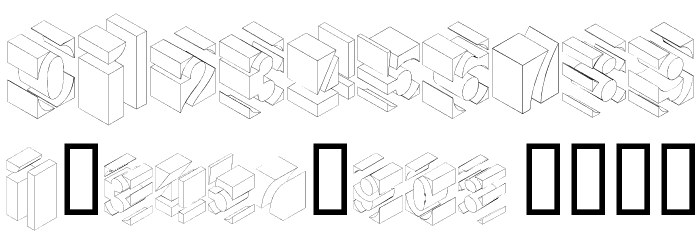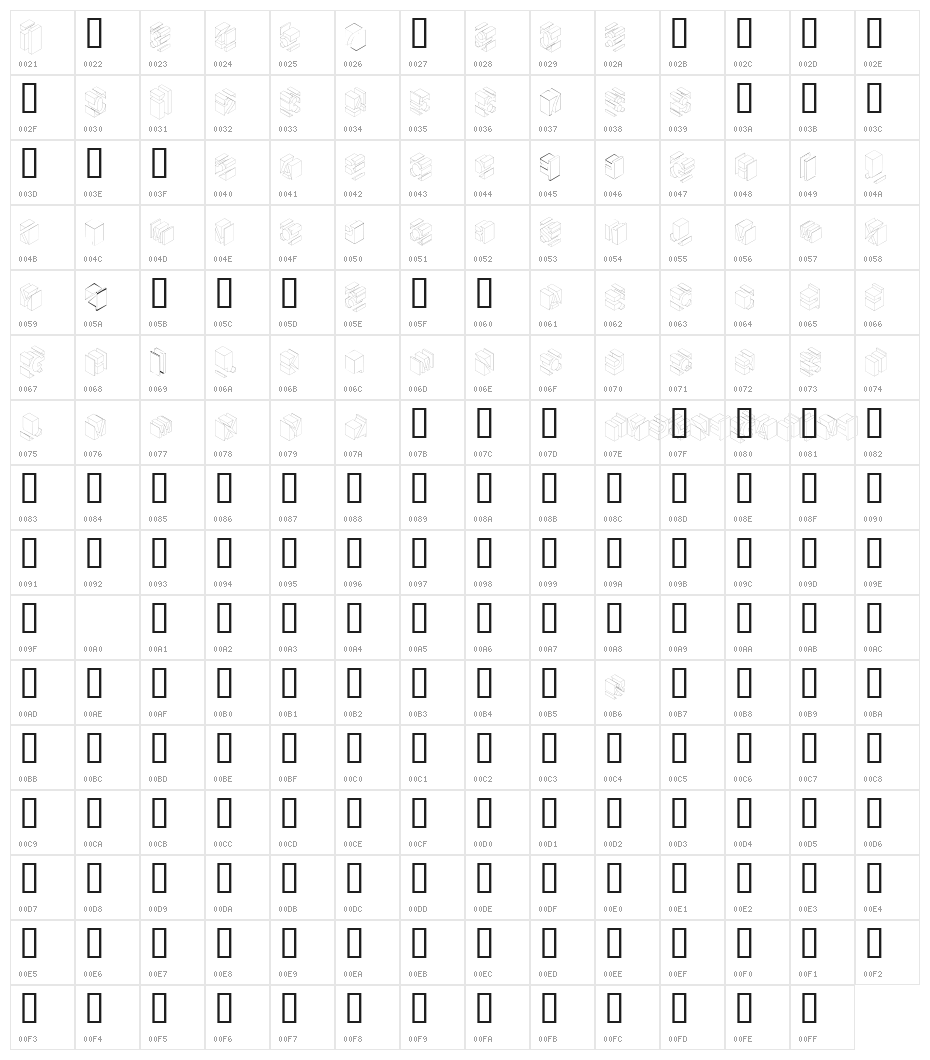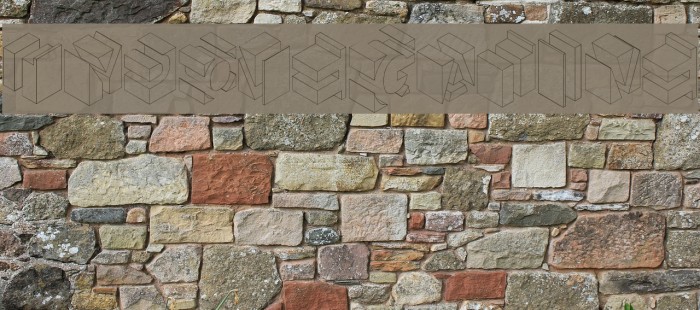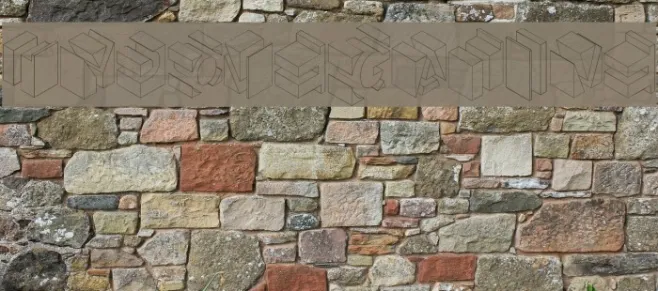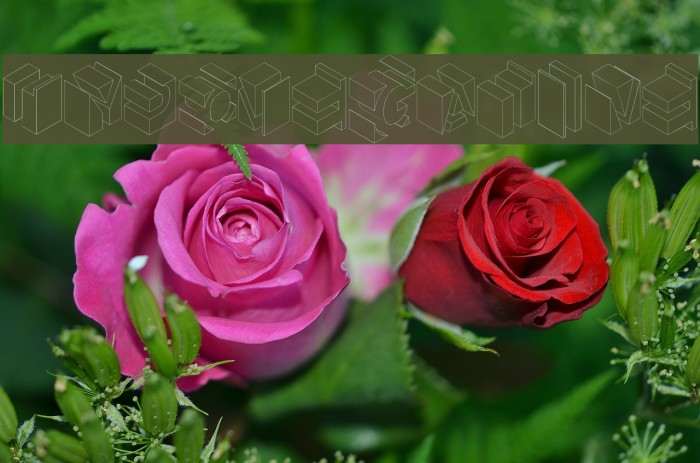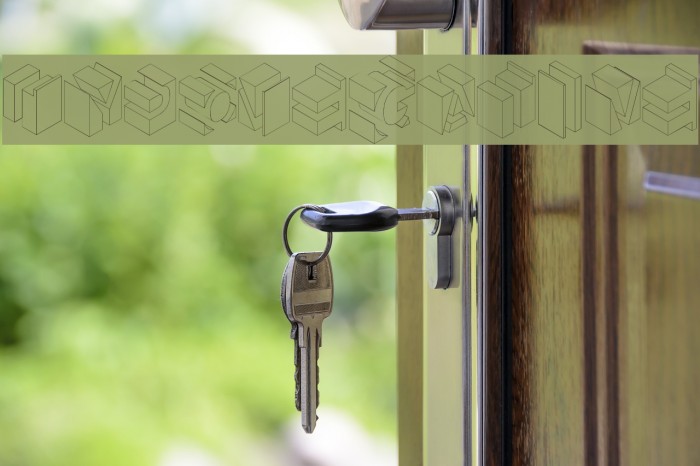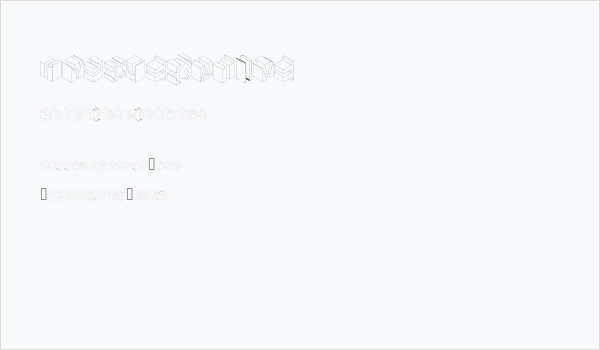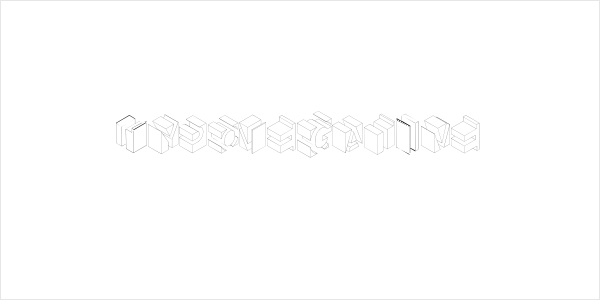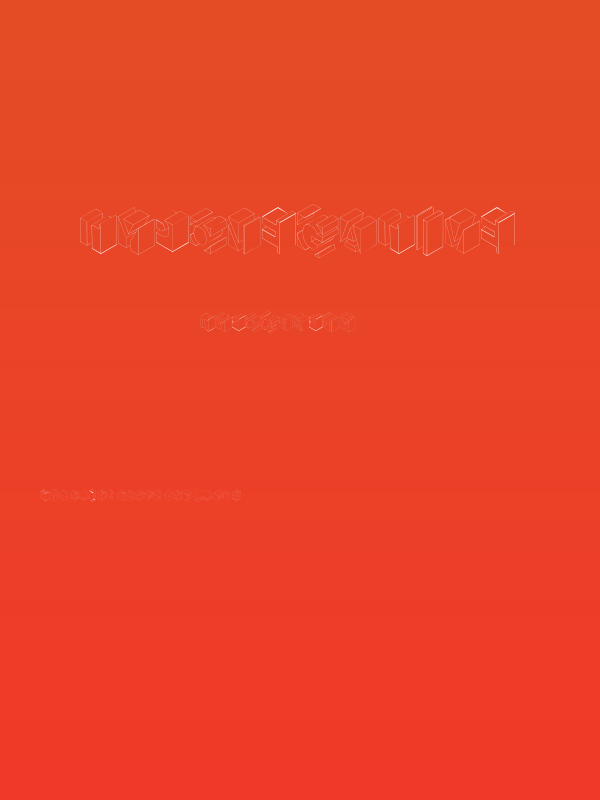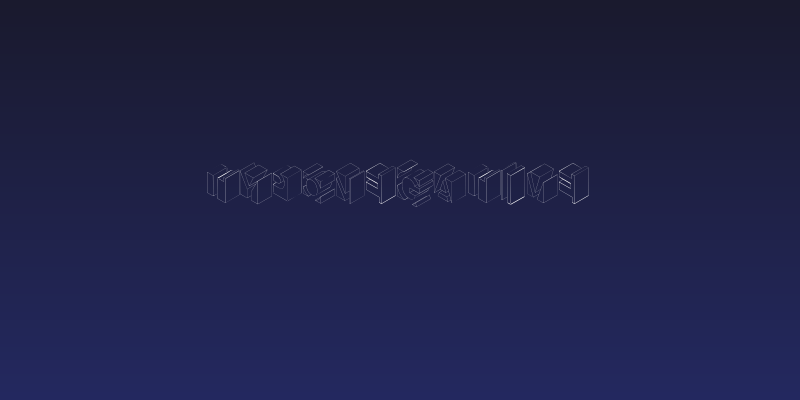
TypoNegative Font
TypoNegative Description
This font features a unique three-dimensional, geometric design that gives each character a block-like appearance. The letters are constructed with clean lines and sharp angles, creating a sense of depth and perspective. The style is reminiscent of architectural blueprints or technical drawings, with each character appearing as if it is a part of a larger structure. The font maintains a consistent thickness throughout, with no variation in stroke width, contributing to its modern and industrial aesthetic. The characters are evenly spaced, ensuring readability despite their complex design. This font is ideal for projects that require a bold and futuristic look.
| Proposed Projects | Ideal for architectural branding, futuristic posters, technical illustrations, and modern art installations. |